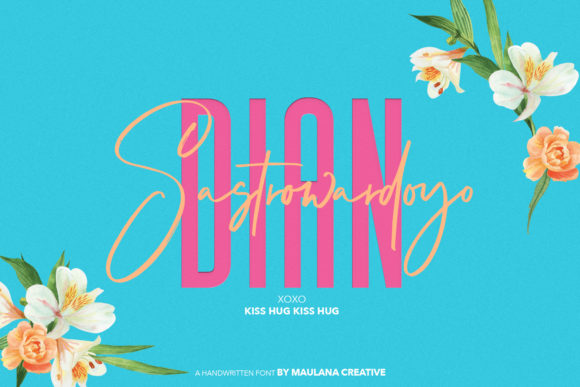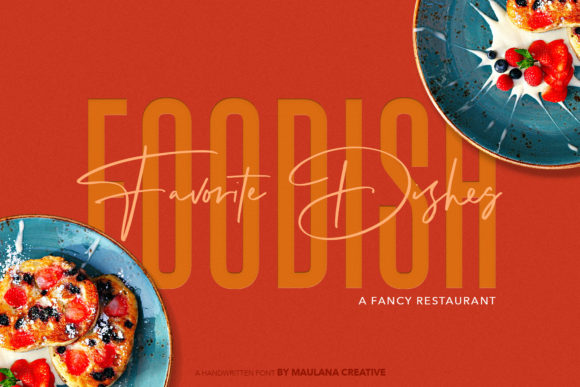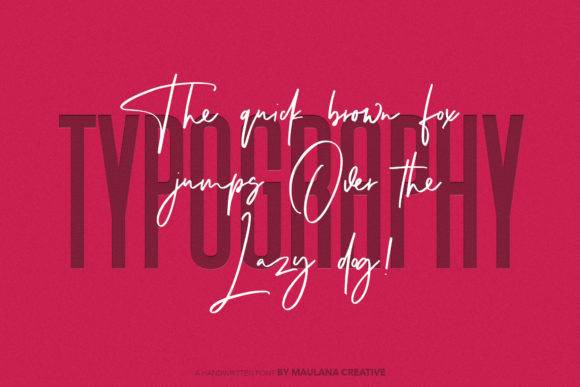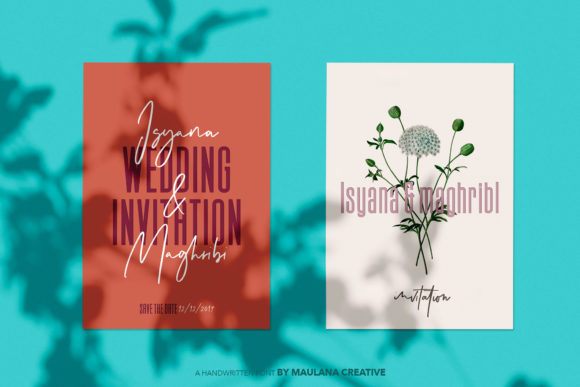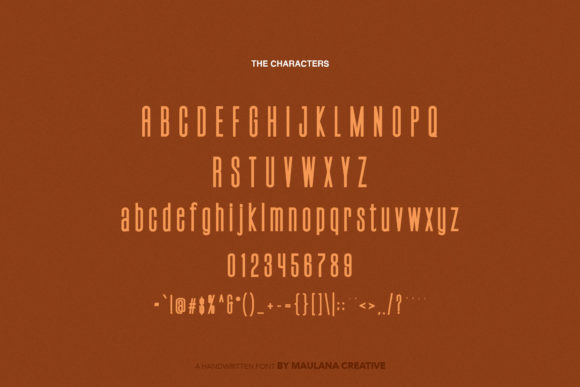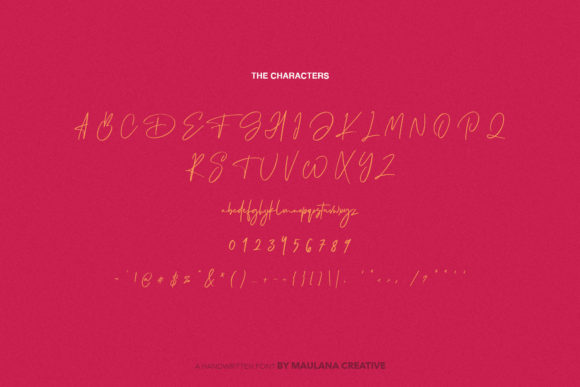
The Perfect Script for Your Next Design Project
Do you remember that moment when you’re brainstorming ideas for a new project and suddenly a font catches your eye? You can almost see the entire design come together in your mind. That’s exactly what happened to us when we stumbled upon the Cabello Font. This light and charming script has a way of adding an authentic feel to any design project.
Cabello Font is designed to evoke a relaxed vibe, perfect for projects that need a touch of warmth and personality. Whether you’re working on a branding campaign, a website, or a social media graphic, this font will help you convey a sense of approachability and friendliness. For designers, Cabello Font is a valuable asset, offering a unique way to express your creativity and connect with your audience.
Cabello Font Key Features
- Unique Characteristics: Cabello Font features a unique, hand-drawn design with a mix of script and serif elements, giving it a distinctive and elegant look.
- Number of Glyphs: Cabello Font contains over 500 glyphs, including a wide range of ligatures, swashes, and ornaments.
Cabello Font Review
As a designer, I was excited to dive into the Cabello Font. Here’s my honest review.
- Unique Character: Cabello Font has a distinct, elegant character that sets it apart from other fonts. Its combination of curved and straight lines creates a visually appealing aesthetic.
- Flexibility: This font is suitable for a wide range of designs, from wedding invitations to branding materials, making it a versatile choice.
- Legibility: Cabello Font is highly legible, ensuring that the text remains clear and easy to read, even at smaller font sizes.
- Lack of Expressiveness: While Cabello Font is elegant, it may lack the expressiveness and emotional depth that some designers seek in a font.
- May Not Suit Bold Designs: Due to its delicate nature, Cabello Font may not be the best choice for bold or edgy designs, where a more dramatic font would be more suitable.
Cabello Font is a solid choice for designers seeking a refined, elegant aesthetic. While it may not be the best fit for every design, it’s a versatile and legible font that can elevate a wide range of projects. With careful selection and application, Cabello Font can be a valuable addition to any designer’s toolkit.
Tips for Getting the Most Out of Cabello Font
Use Cabello Font for creative projects, such as invitations, quotes, and social media graphics.
Experiment with font sizes, colors, and combinations to achieve a unique look.
Combine Cabello Font with other fonts to create a visually appealing contrast.
Cabello Font is ideal for:
Social media graphics and quotes
Personalized gifts and cards